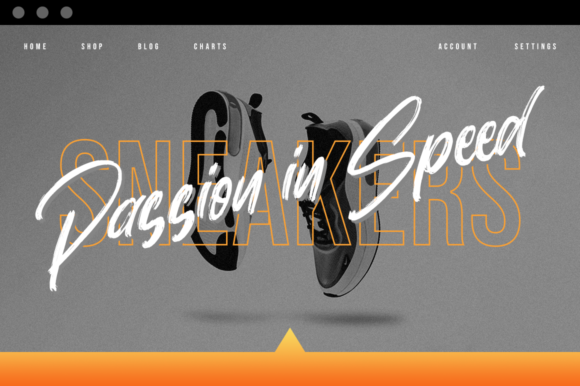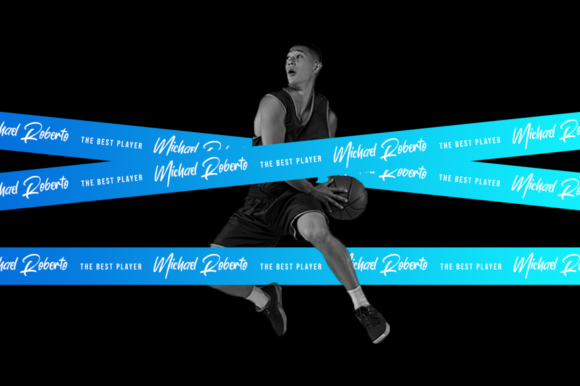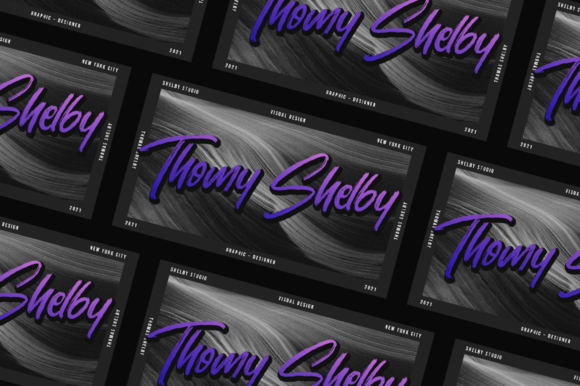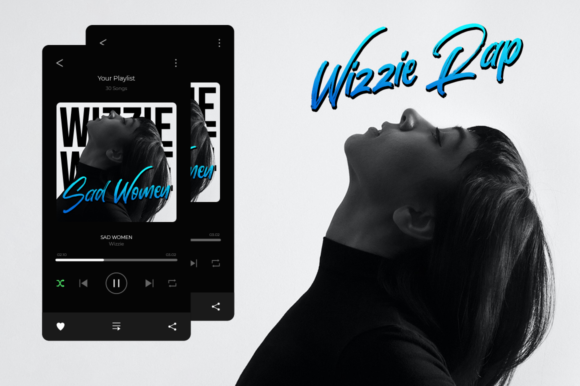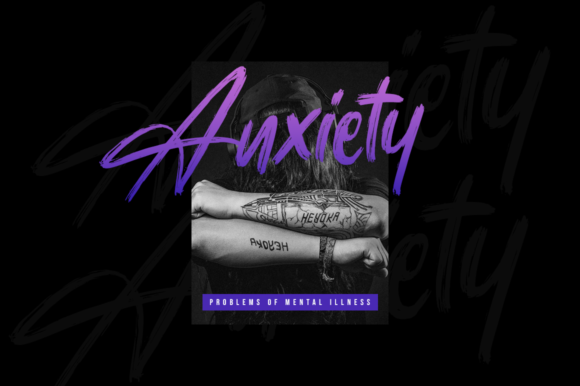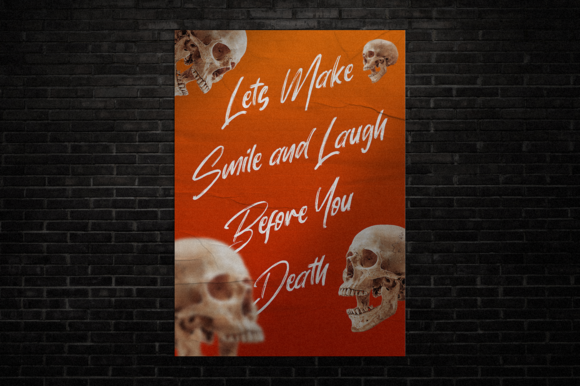
The Magic of Alphayouth Font: Elevate Your Designs with a Playful Twist
I’ll never forget the time I was working on a project for a children’s party invitation. I had the design concept nailed, but something was missing – the perfect font. I scoured the internet, tried out dozens of fonts, but none seemed quite right. That was until I stumbled upon Alphayouth, a brushed script font that instantly brought my design to life. In this article, I’ll share my love for Alphayouth, its features, and how to make the most of it in your designs.
An Honest Review of Alphayouth Font
What I Love About Alphayouth ✨
• ✅ Charming, playful characters that add a touch of whimsy to any design
• ✅ Unique, hand-brushed feel that sets it apart from other script fonts
• ✅ Easy to read, even at smaller font sizes
• ✅ Highly versatile, suitable for a wide range of design projects
• ⚠️ Some characters may not work well in all languages or scripts
• ⚠️ Limited availability of certain OpenType features in certain software
The Backstory of Alphayouth
Alphayouth was designed by a team of creatives who wanted to create a font that would bring a touch of playfulness to designs. Inspired by the world of street art and hand-lettering, they crafted a font that’s both charming and whimsical. The result is a font that’s perfect for designers, crafters, and creative hobbyists who want to add a bit of personality to their work.
Q: What type of designs is Alphayouth best suited for?
A: Alphayouth is highly versatile and can be used for a wide range of designs, from party invitations and children’s books to branding materials and product packaging.
Q: Is Alphayouth available in different languages?
A: Alphayouth may not support all languages or scripts, so be sure to check the font’s capabilities before using it for a multilingual project.
Q: Can I use Alphayouth in digital and print designs?
A: Yes, Alphayouth can be used in both digital and print designs, making it a great choice for designers who work across multiple mediums.